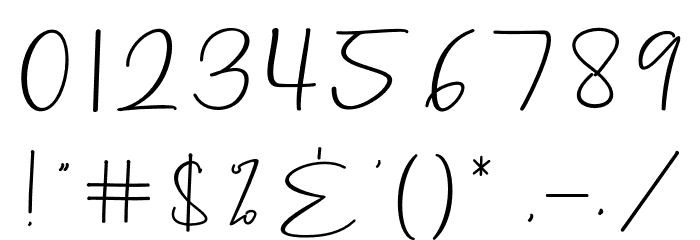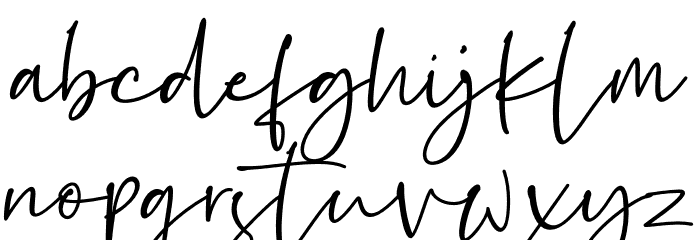
Hastage Font
Hastage Description
This font exhibits a lively and dynamic handwritten style, characterized by its fluid and flowing strokes. The uppercase letters are tall and slightly narrow, with a playful, casual feel. The lowercase letters maintain a consistent rhythm, with some letters featuring loops and curves that add to the font's charm. The numerals are clear and legible, matching the overall style of the alphabet. Special characters are integrated seamlessly, maintaining the handwritten aesthetic. This font's informal and approachable nature makes it suitable for a variety of creative applications.
A lively, handwritten font with fluid strokes and a casual feel from Uncategorized fonts.
- Proposed Projects: Ideal for greeting cards, invitations, personal branding, and social media graphics.
- Overall Style: Casual, Playful
- Use Case: Logos, Headlines, Invitations